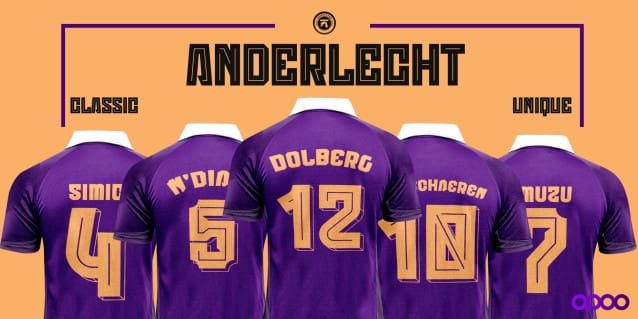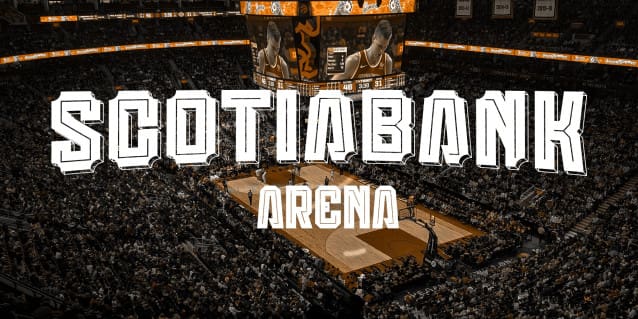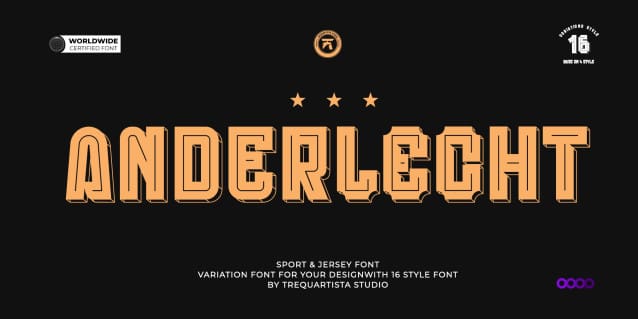
Anderlecht Display Font
Anderlecht Display Font, combines modern aesthetics with classic design to bring a unique vision of football to life. It’s not just a font—it’s a work of art that captures the unforgettable emotions and moments in the team’s history. With a classic touch, reflected in its boxy shapes, each letter brings you closer to the field, filled with details that capture iconic players, moments of victory, and the vibrant atmosphere of the stadium.
therefore excellent to use for headers, logos, captions and posters, especially for the sports branding industry, but just as good for any other projects.